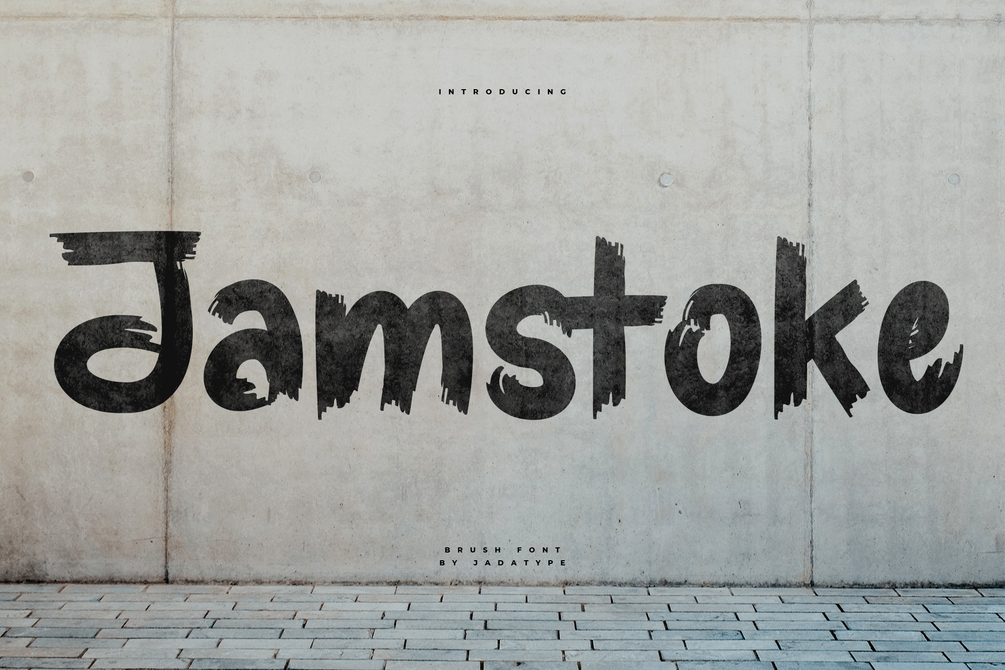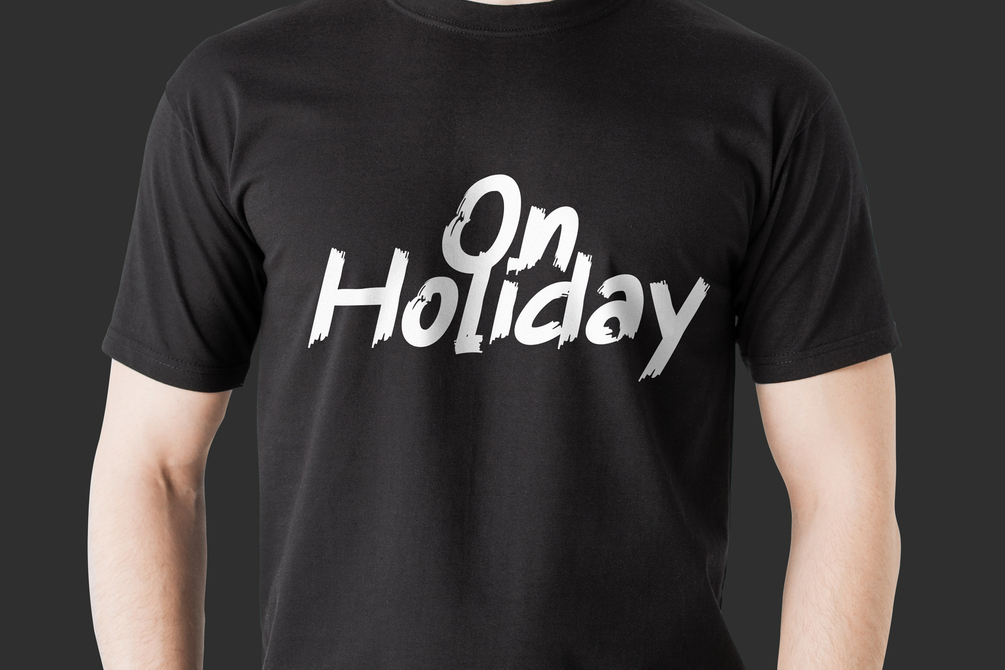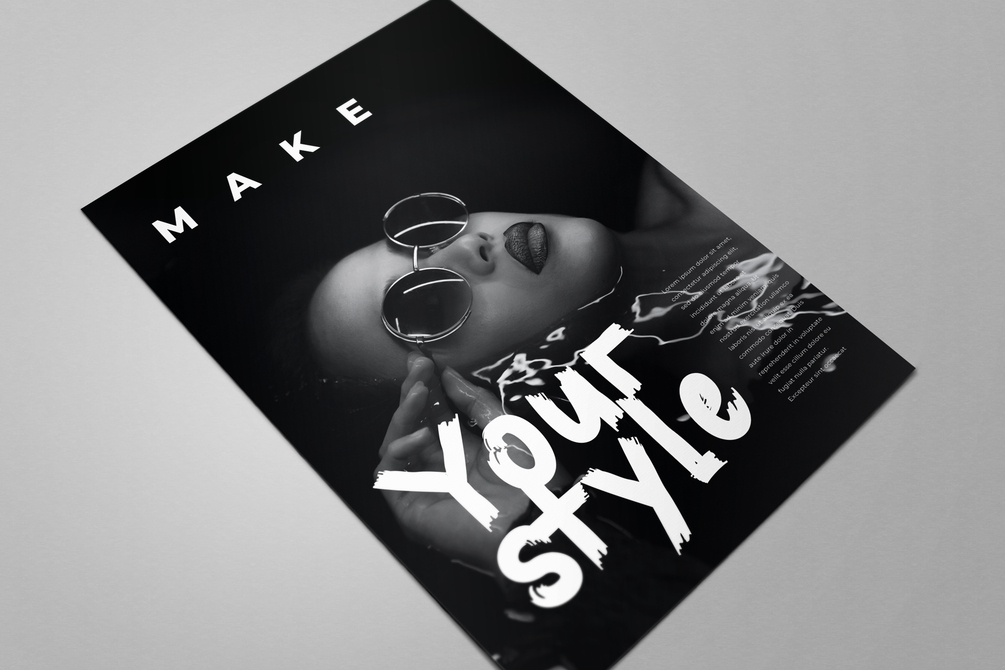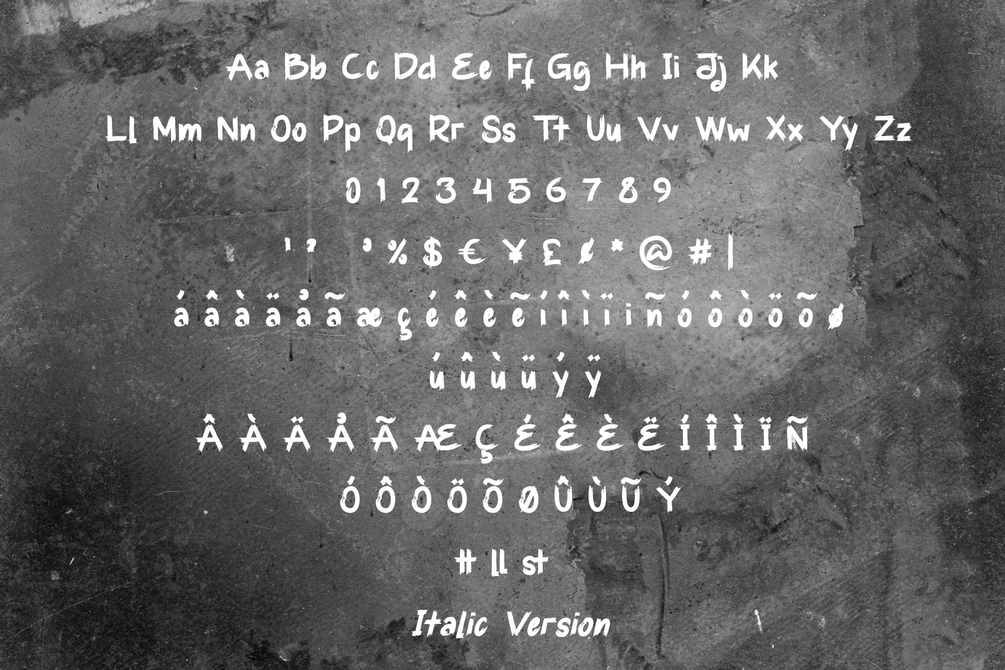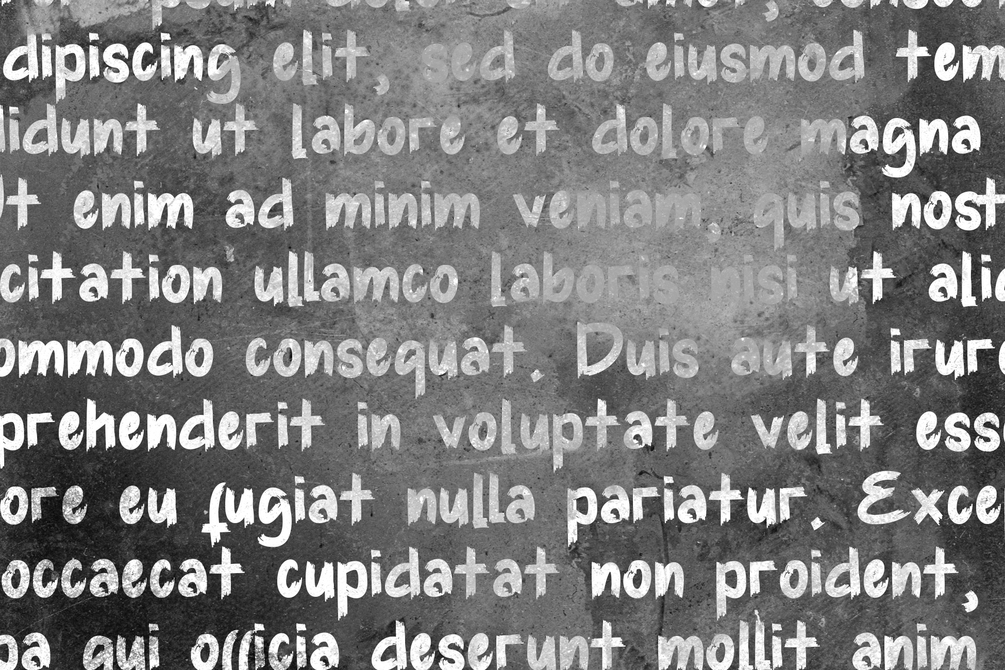
Jamstoke Font
Jamstoke is a font with a simple brush style. suitable for social media, branding, poster, products, advertisement, and so on. contains standard English letters, numbers, punctuation, and several accents that support multilingualism.
• Italic Version